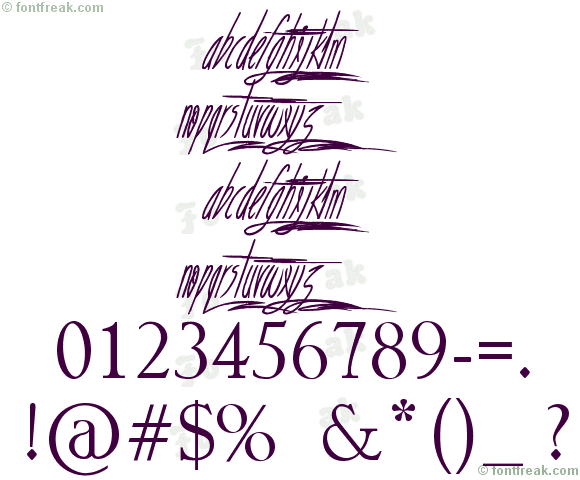
See you tomorrow bright and ear
The "See you tomorrow bright and ear" font, designed by Jonathan S. Harris, is a captivating script typeface that embodies a playful yet elegant style. This font falls under the script category, characterized by its fluid, cursive strokes and a charming, handwritten aesthetic. The visual characteristics include a moderate stroke weight that provides a sense of harmony and balance, combined with graceful curves and elegant flourishes. The spacing is thoughtfully designed to maintain readability while allowing the letters to flow seamlessly into one another, adding a personal touch to any text.
This font is perfect for a variety of creative applications. It shines in wedding invitations, where its romantic and whimsical qualities can enhance the overall theme. Additionally, it is well-suited for greeting cards, providing an inviting and warm feel to personal messages. Restaurant menus can also benefit from the font's unique personality, making dish names stand out and adding an artistic flair to the dining experience. Moreover, it can be used effectively in branding for small businesses that wish to convey a friendly and approachable image. Content creators looking to add a touch of creativity to their social media posts or blogs will find this font particularly appealing, as it resonates with audiences seeking authenticity.
The target audience for the "See you tomorrow bright and ear" font includes graphic designers, small business owners, and content creators who appreciate unique typography and the emotional impact it can convey. The font's distinctive style and versatility make it a valuable addition to any designer's toolkit. For those eager to explore its charm, the "See you tomorrow bright and ear font free download" offers an opportunity to incorporate this delightful typeface into various projects. Its playful elegance and artistic flair set it apart, making it a standout choice for any creative endeavor.